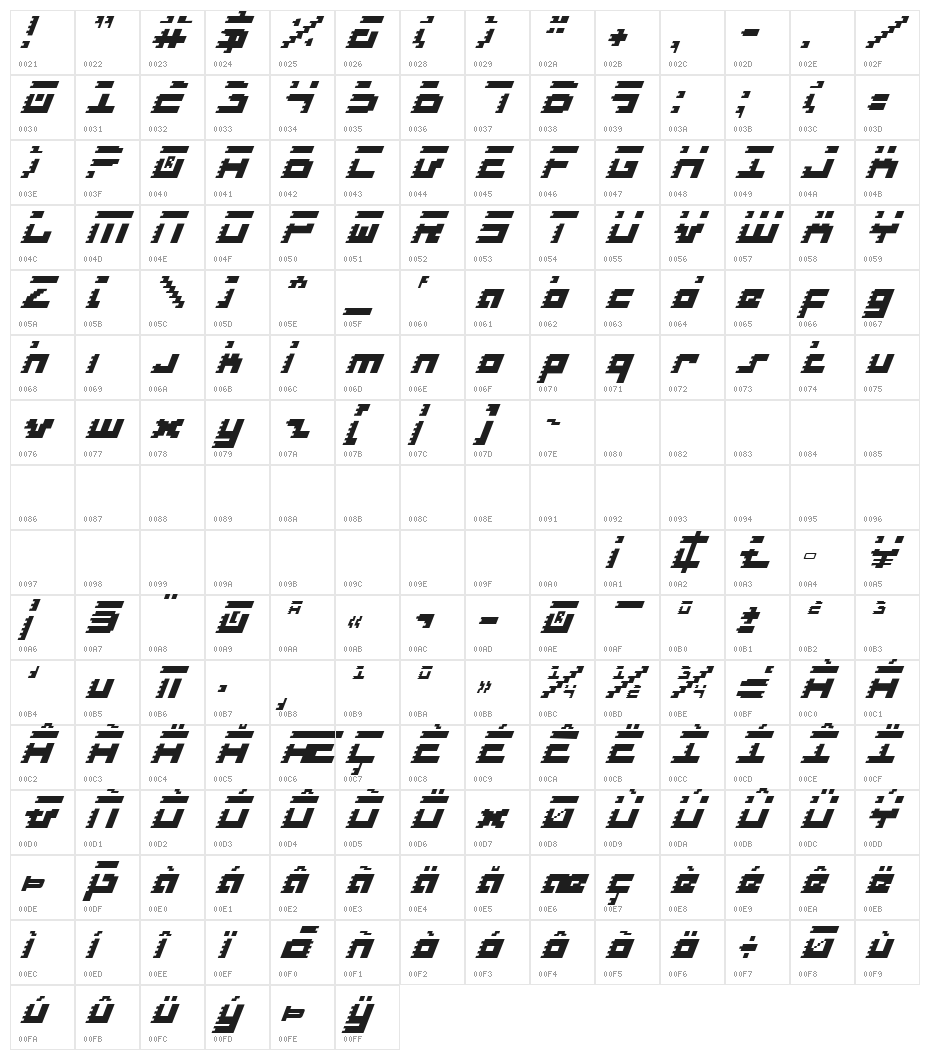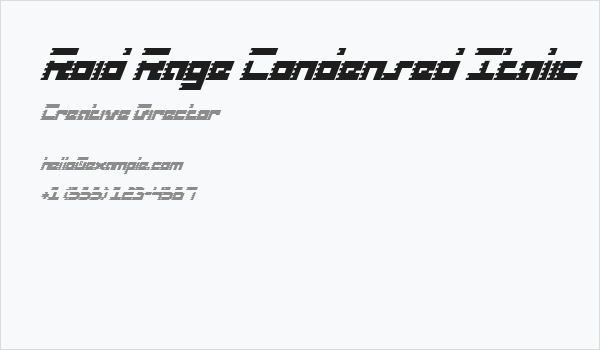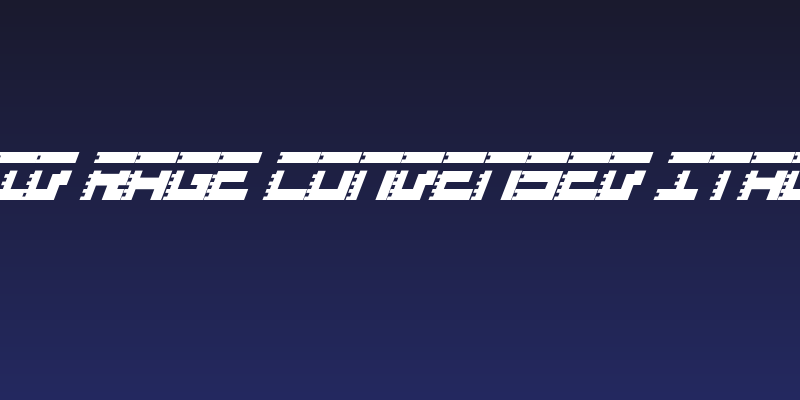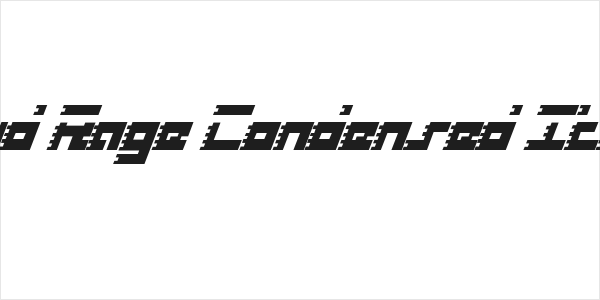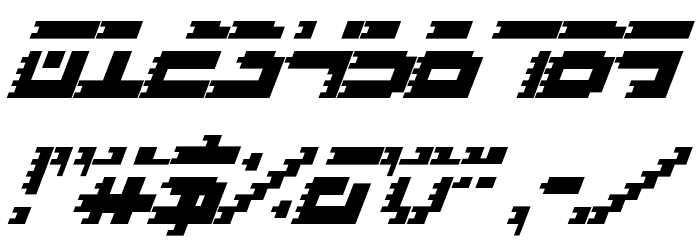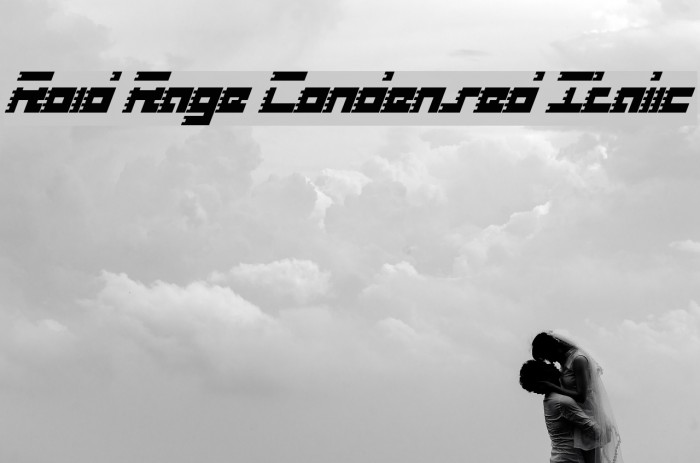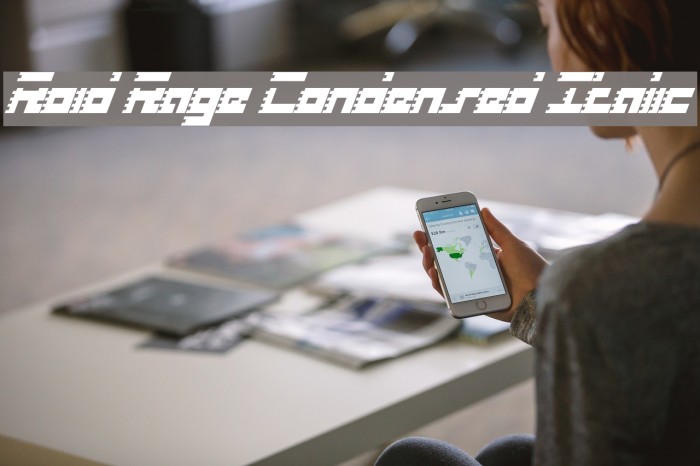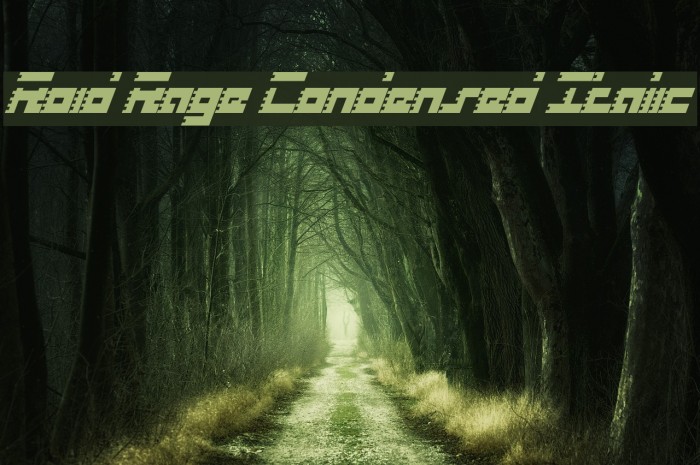
Roid Rage Condensed Italic Font
Roid Rage Condensed Italic Description
This font features a bold, condensed style with a distinct italic slant, giving it a dynamic and energetic appearance. The characters are designed with a pixelated, digital aesthetic, reminiscent of retro video game graphics. Each letter is constructed with sharp, angular edges and a consistent stroke width, contributing to its futuristic and edgy look. The spacing between characters is tight, enhancing the compact and cohesive feel of the text. This font's unique style makes it stand out, ideal for projects that require a strong visual impact.
| Overall Style | Futuristic, Edgy |
| Proposed Projects | Ideal for video game titles, tech-themed posters, digital art projects, and edgy branding. |